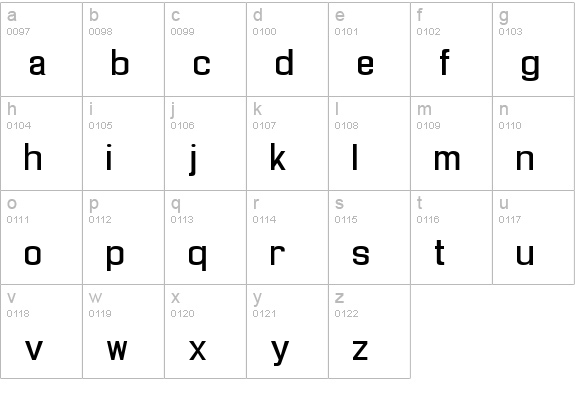
Enigmatic Font Details
Enigmatic font is a captivating and mysterious typeface that will add a touch of intrigue to your designs. With its unique and enigmatic appearance, this font is perfect for creating eye-catching headlines or adding a sense of mystery to your projects. The sleek and stylish letterforms of Enigmatic font will surely make your text stand out. Best of all, Enigmatic font is available for free download at FontsMarket.com. So why wait? Add a touch of enigma to your designs today with this stunning typeface.